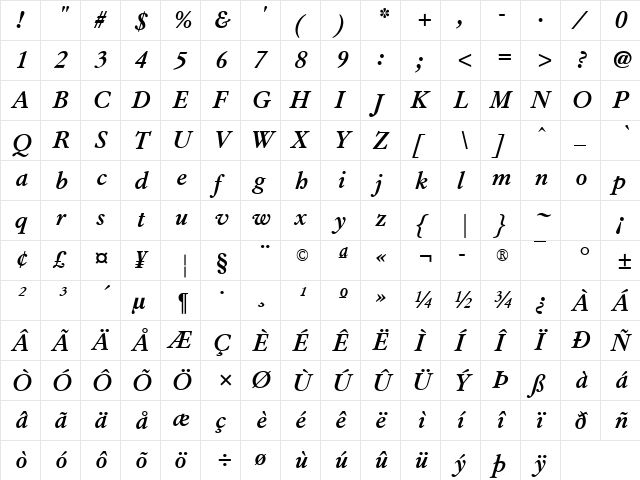
Guatemala BoldItalic
Design Context for Guatemala Typeface
Guatemala is a composed and adaptable typeface that performs quietly and consistently across a wide range of design contexts. The slanted form adds forward momentum and visual energy. The heavy weight commands attention and anchors typographic hierarchies.